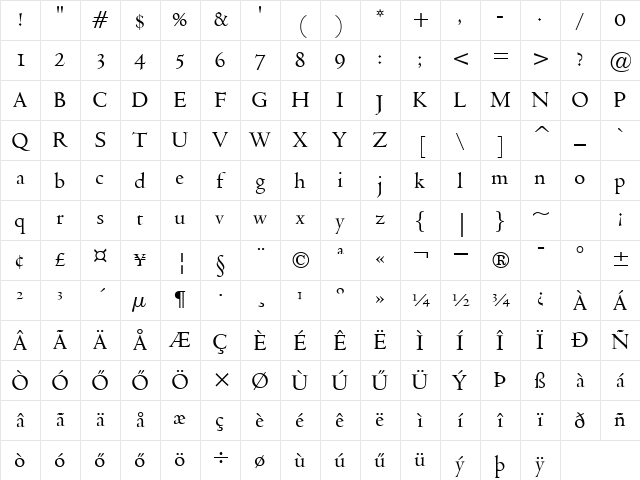
H_Venetian 301 Dm BT Regular
Complete H_Venetian 301 Dm BT Regular glyph index. Displaying only characters natively supported by H_Venetian 301 Dm BT Regular font.
Design Context for H_Venetian 301 Dm BT
H_Venetian 301 Dm BT is a composed and adaptable typeface that performs quietly and consistently across a wide range of design contexts.
Pro Tip: Use H_Venetian 301 Dm BT in both headline and body roles to test its range before committing to a single application.